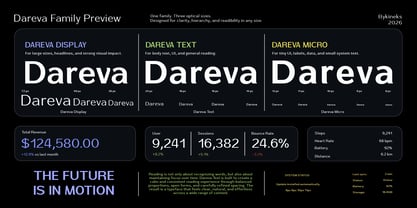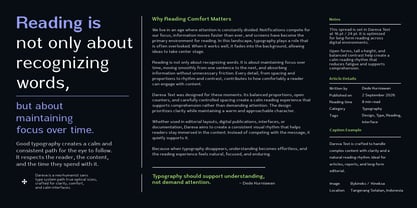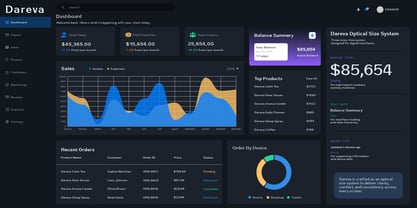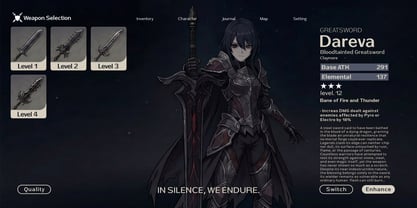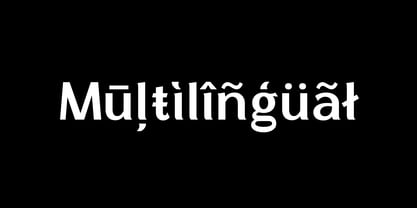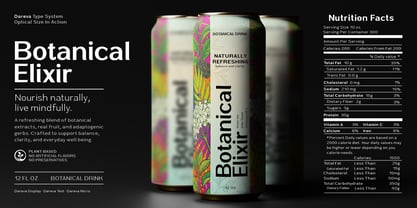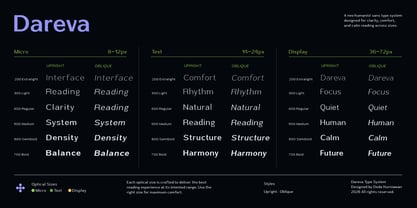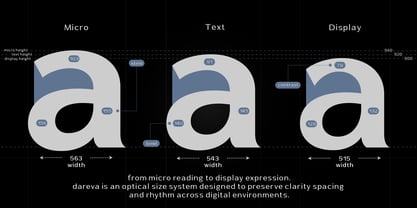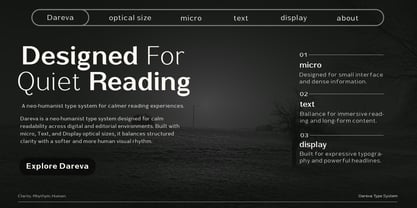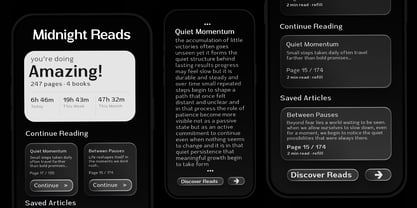
Dareva
The Dareva Font Family was designed by Dede Kurniawan and published by Bykineks. Dareva contains 36 styles and family package options. More about this family
Dareva is a neo-humanist sans type system designed for calm reading and digital clarity.
Built around three dedicated optical sizes—Micro, Text, and Display—Dareva adapts to different reading environments while maintaining a consistent visual voice. Each size is carefully refined to optimize spacing, proportions, contrast, and rhythm for its intended use.
The Micro styles are engineered for interfaces, labels, and dense information. The Text styles provide balanced proportions and comfortable reading in long-form content. The Display styles introduce refined contrast and expressive details for impactful headlines and large-scale typography.
With 36 styles ranging from Extra Light to Bold, plus matching Obliques, Dareva offers a versatile typographic system for digital products, editorial design, branding, dashboards, and user interfaces.
Designed with multilingual support and crafted for clarity, comfort, and consistency, Dareva helps reading feel quieter, smoother, and more human.